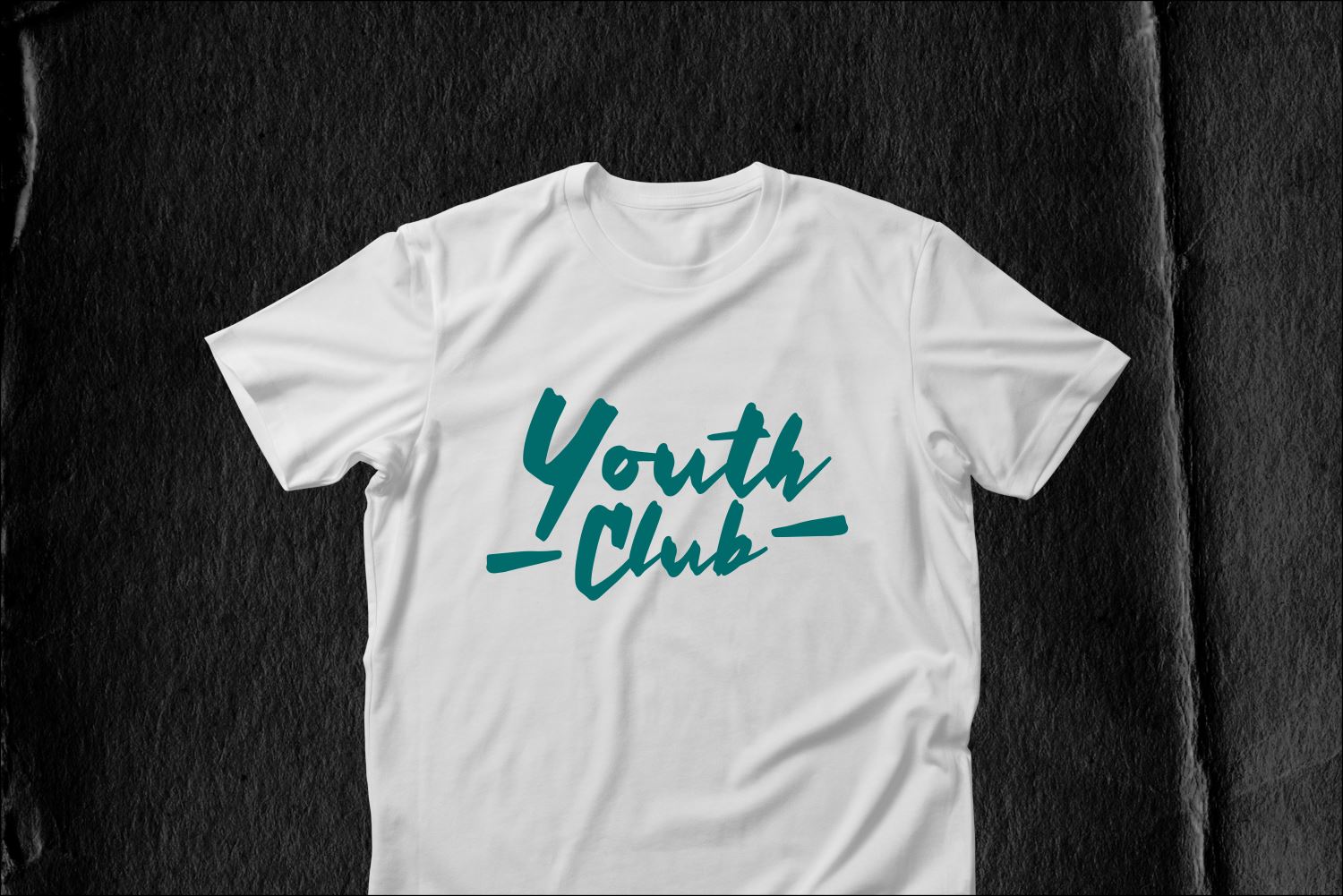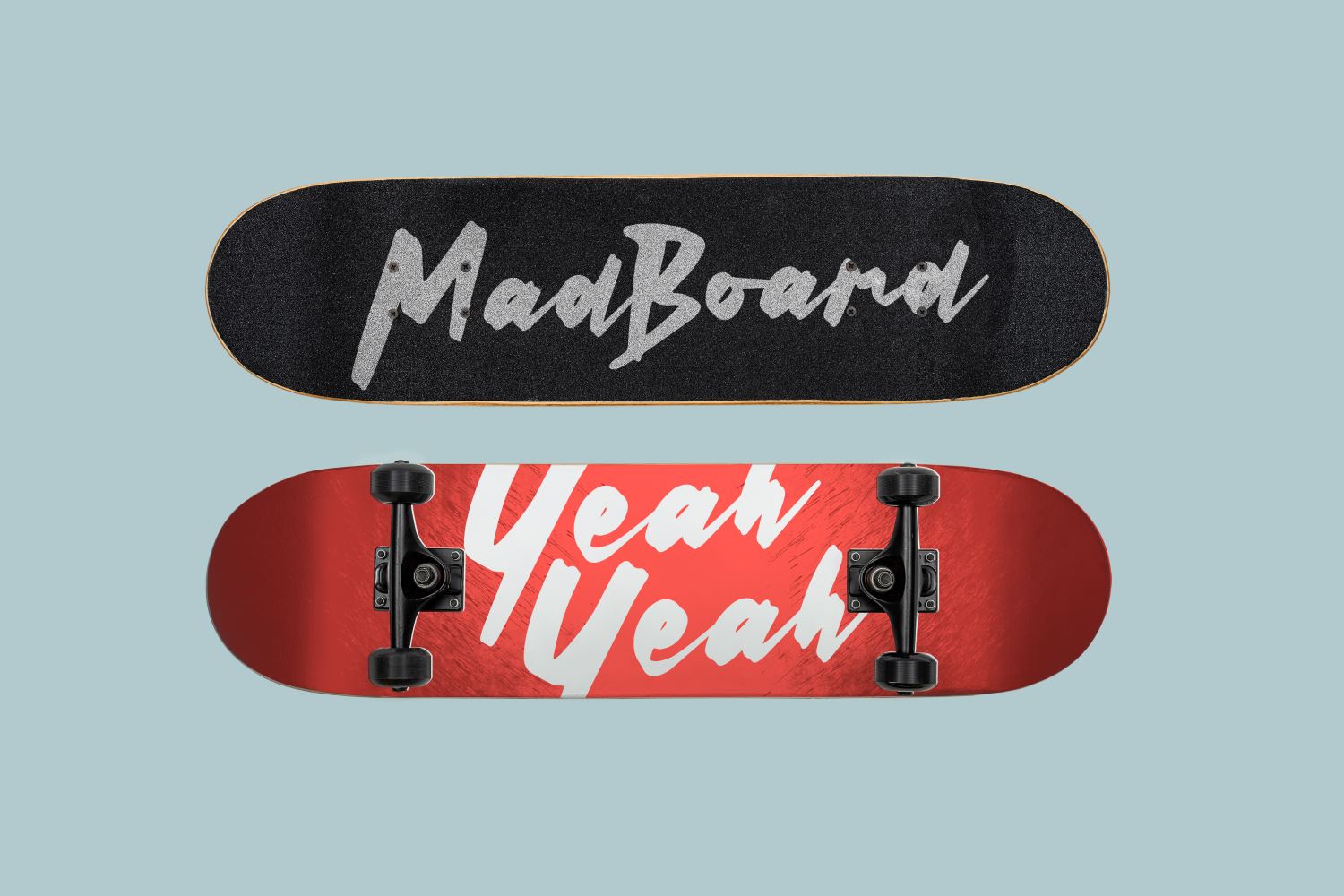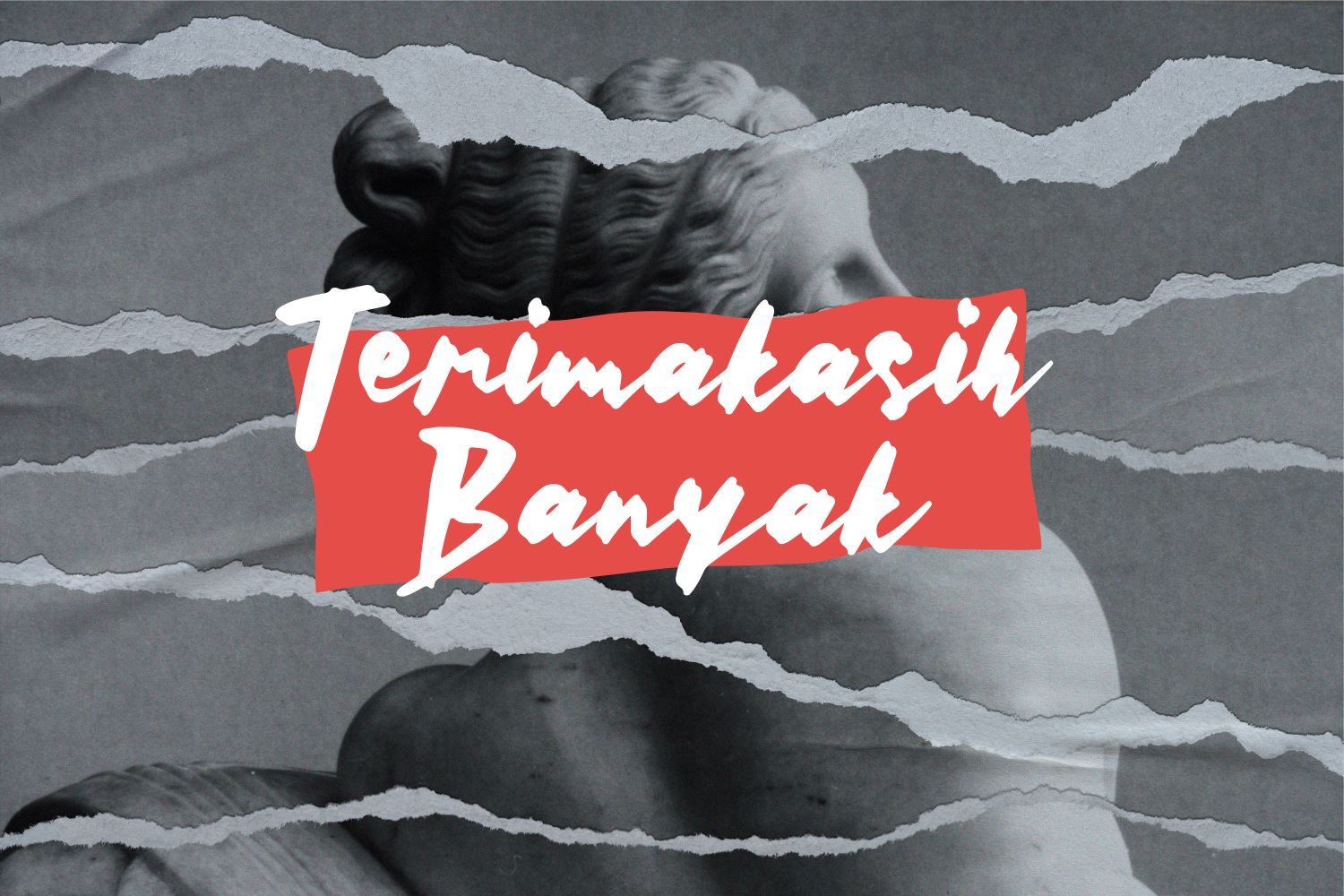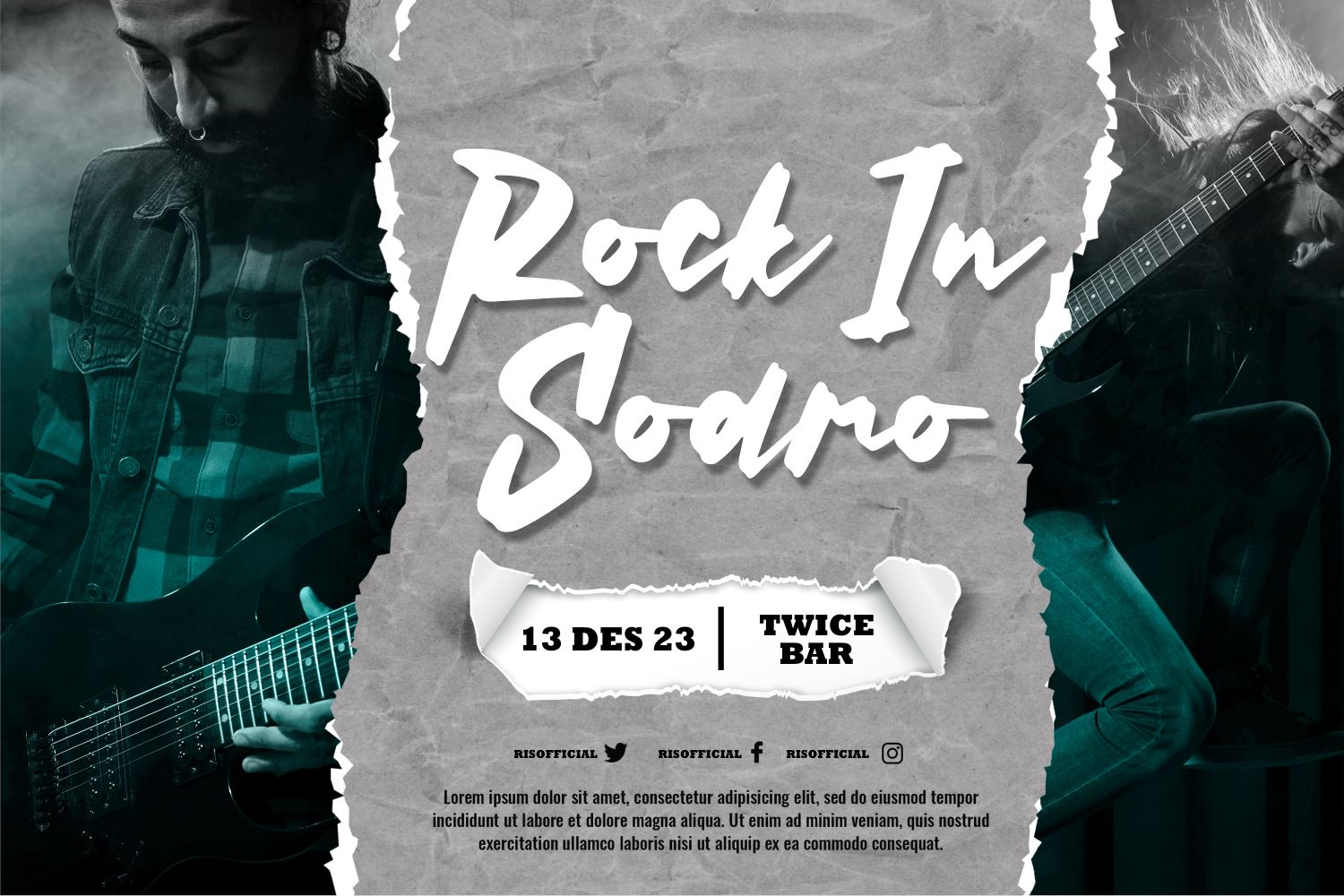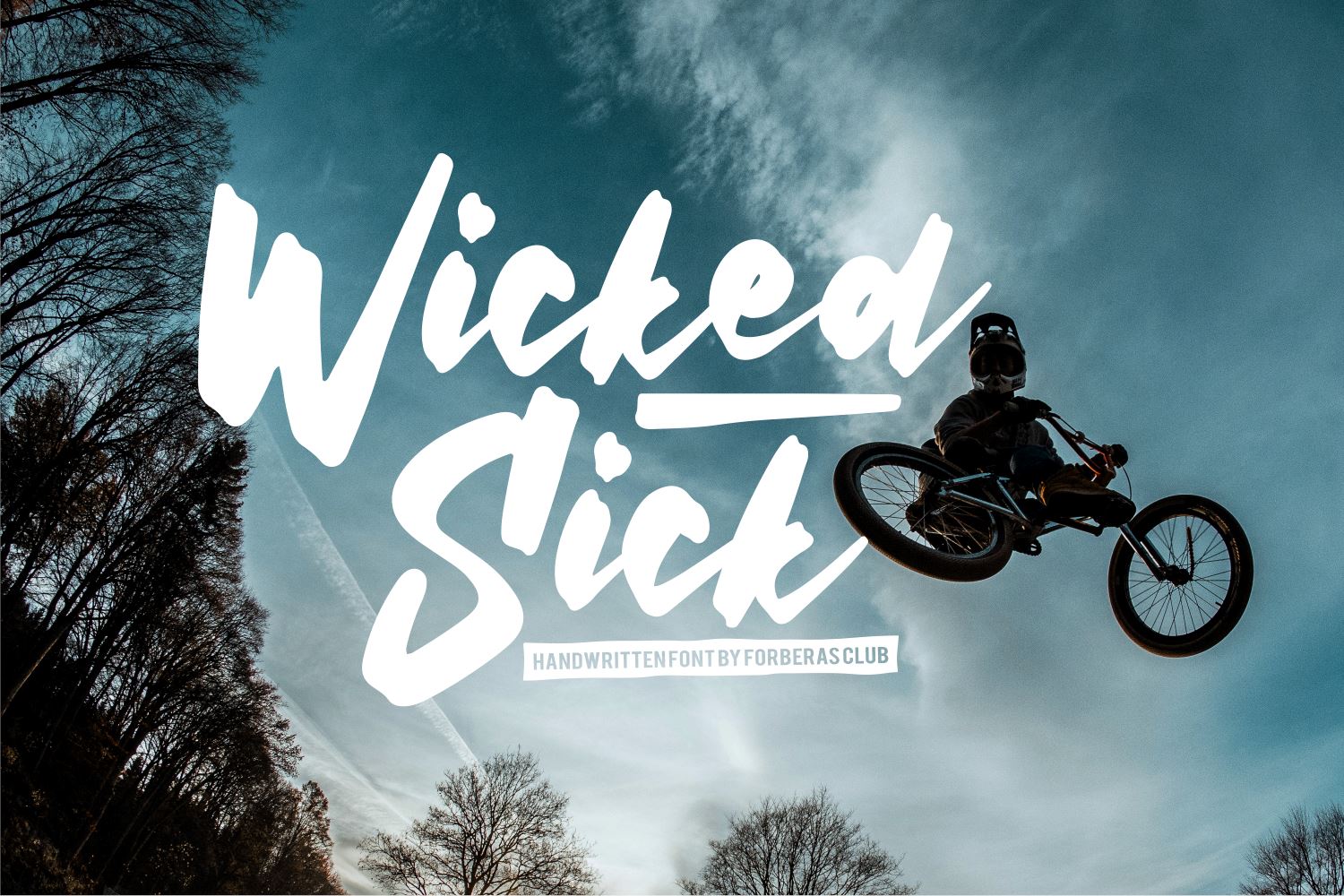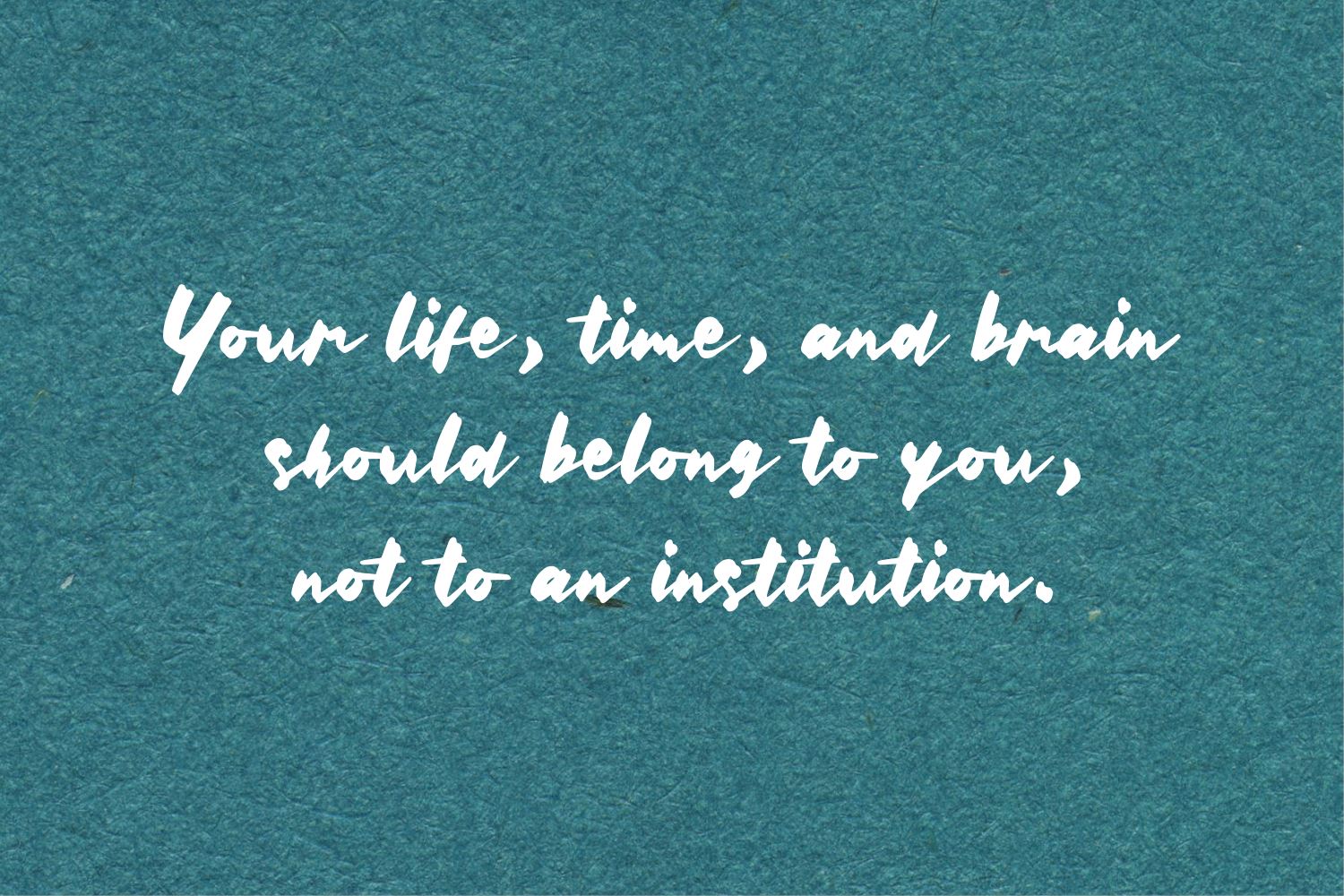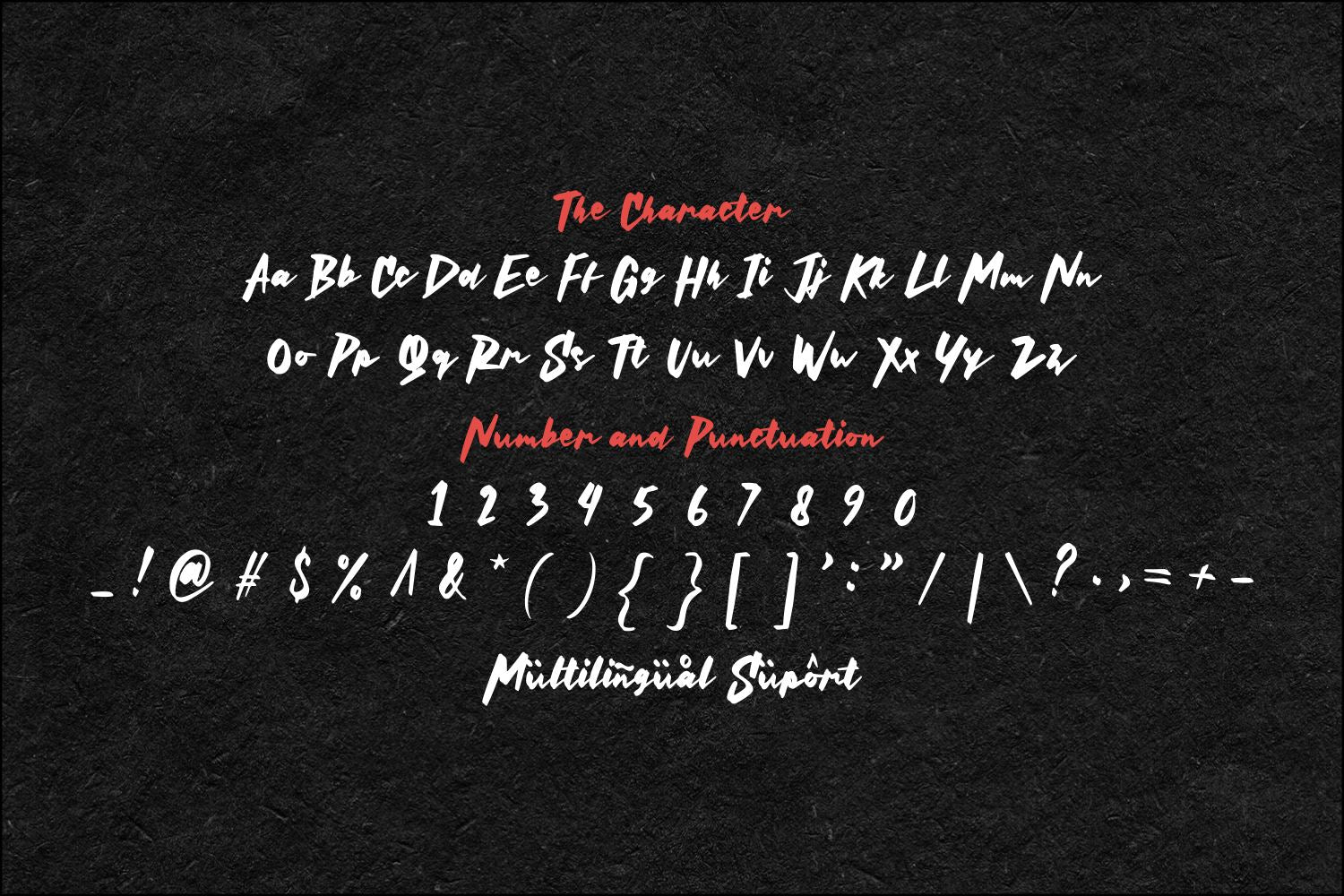
Wicked Sick
About Wicked Sick
Introducing Wicked Sick Font by Forberas Club Wicked Sick is a Modern Handwritten Font. Wicked Sick perfect for book cover, product packaging, branding project, megazine, social media, kisd book fonts, or just used to express words above the background. This font includes TTF and OTF, This font also multilingual support.